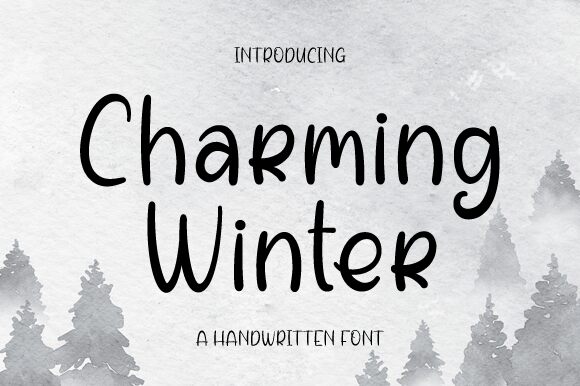
Charming Winter
Charming Winter font is a handwritten font designed by Nirmala Creative with a casual feel. The whimsical style is portrayed through imperfect shapes and friendly vibes that instantly capture the charm of each letter. The name itself takes inspiration from winter but aligns itself perfectly with all kinds of magical seasons, key occasions, and classic holidays.